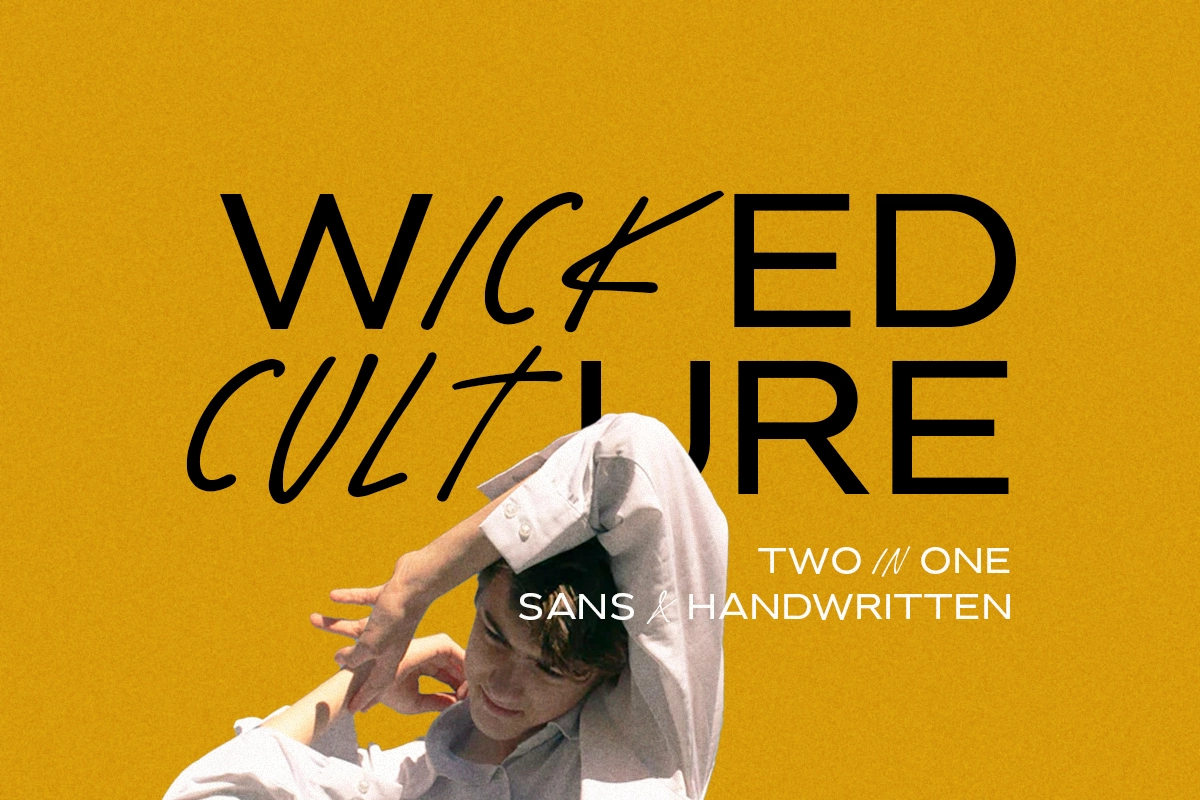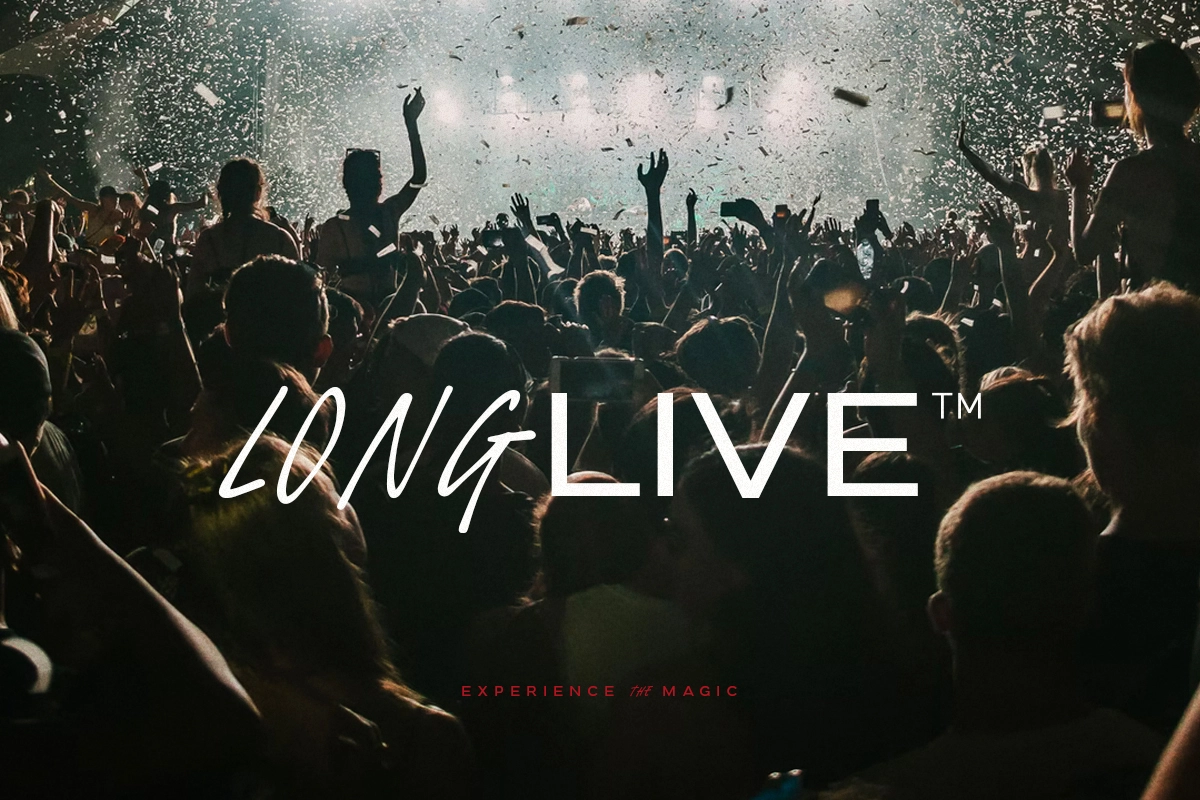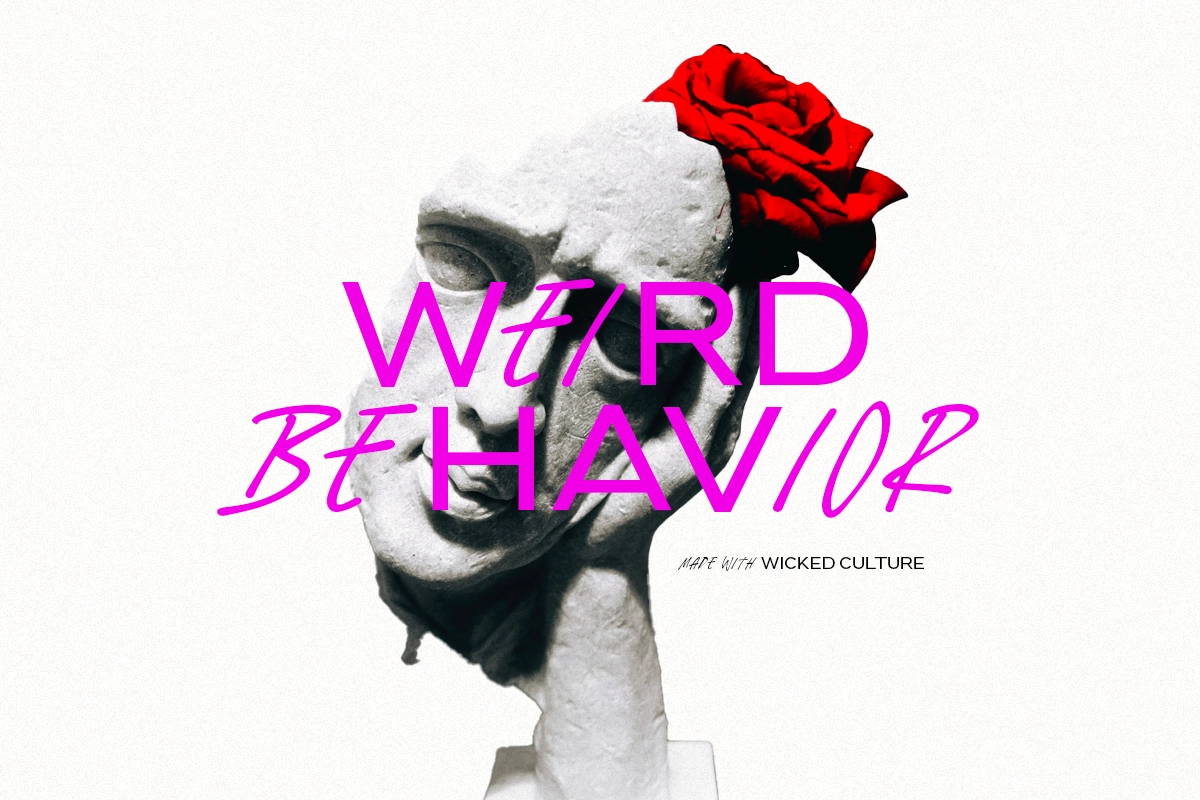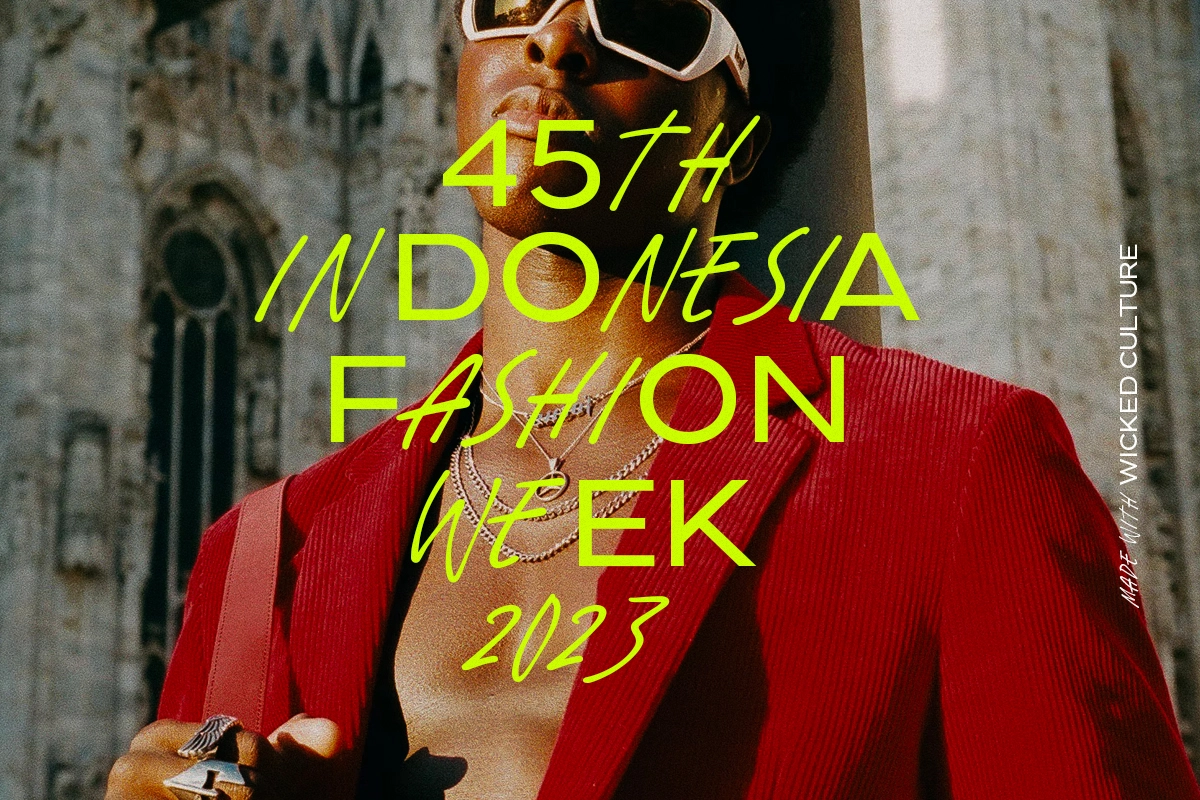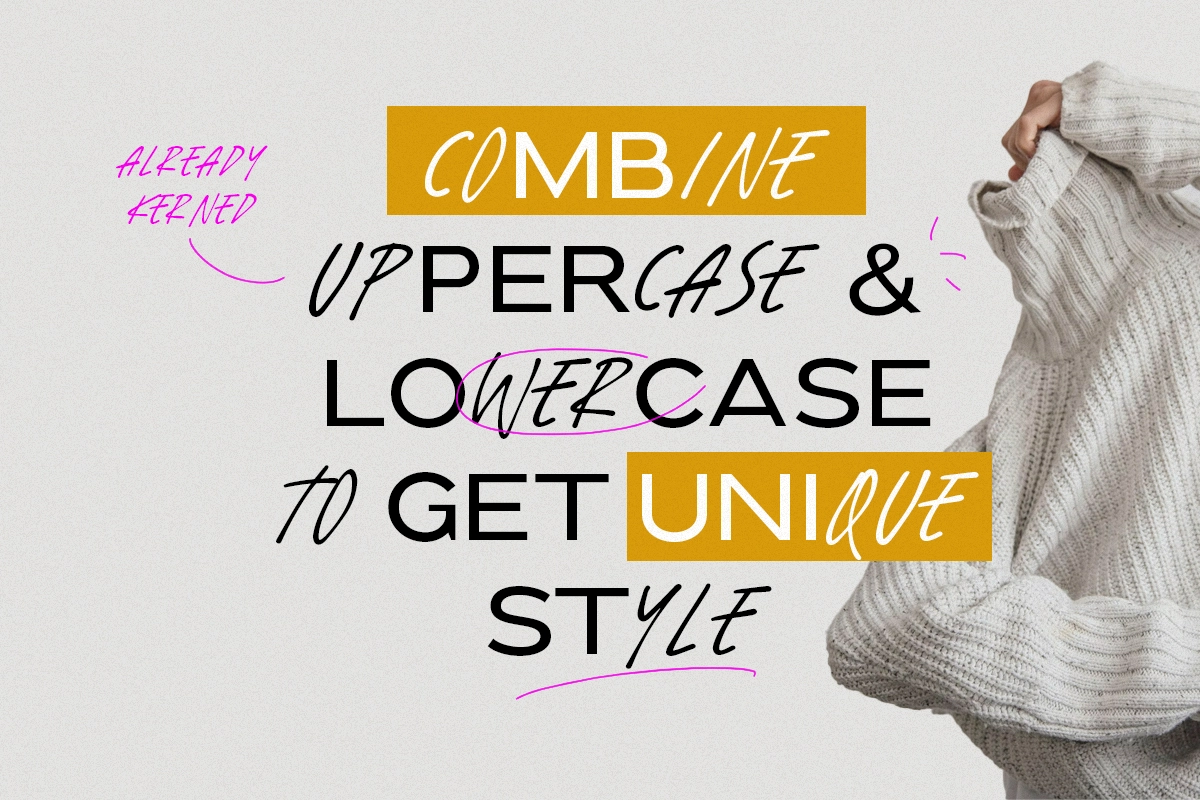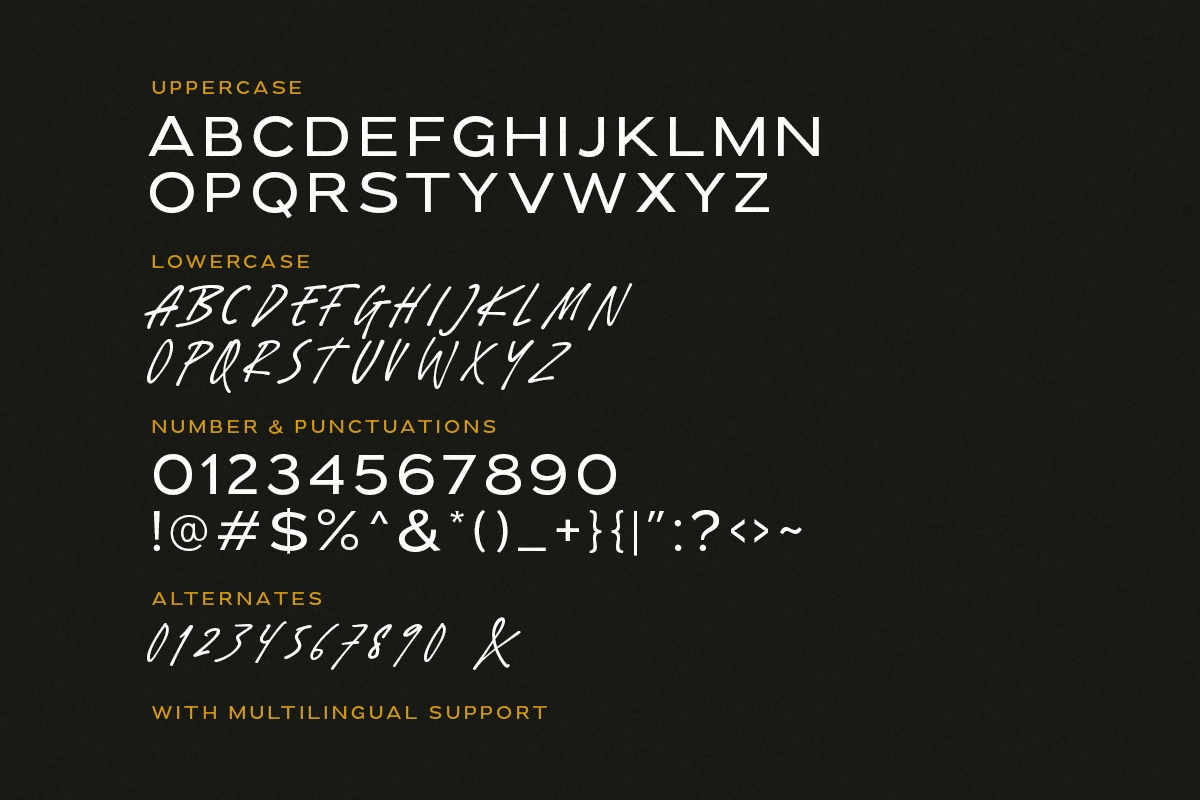
Wicked Culture - 2 IN 1 FONT
Wicked Culture
Wicked Culture is a modern and quirky font that combined sans and handwritten typeface in one font. With sans as uppercase dan handwritten as lowercase. You can use the lowercase and uppercase in the same word that will make your text more stunning and special! You can use this font for the magazine, poster, and suitable for quotes. This font also support multi language.